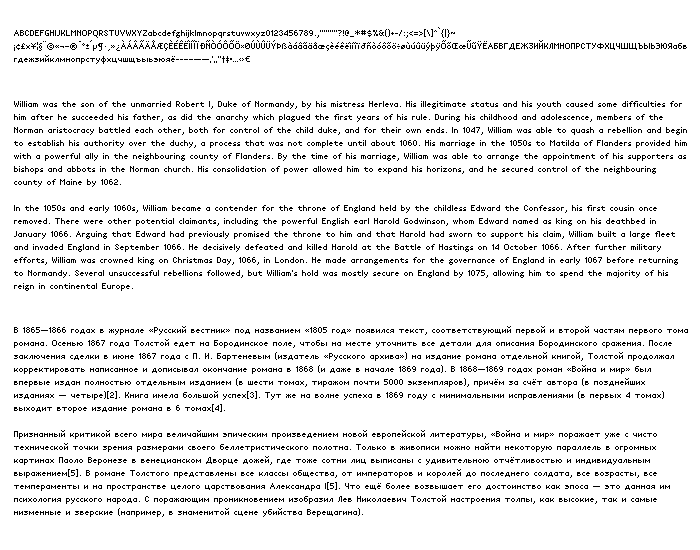
Tiny pixel font for fine prints. Character set and sample text (in English and Russian). Caps height: 6px, x-height: 4px, ascenders and descenders 2-2px respectively, diacritical marks: 3px, Total vertical dimension: 11px. Letter width: 3-8px. Spacing: 1px. No kerning.